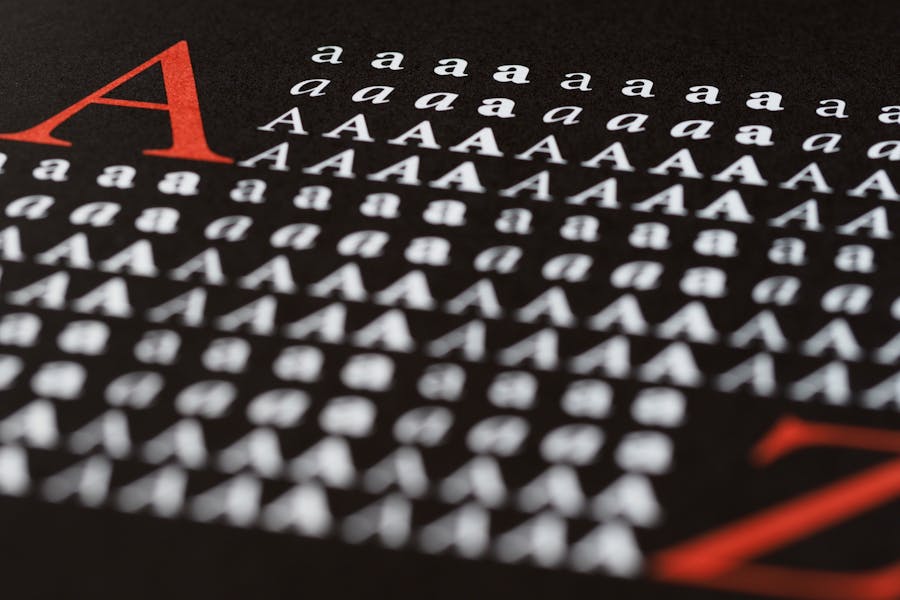
Most companies obsess over what to send. The product, the price point, the packaging. They spend weeks deciding between a premium hamper and a personalized experience box. Then they slap a generic font on the gift card and call it done.
That’s where it quietly falls apart.
There are platforms built around this problem. The idea is that how a gift looks is part of the gift.
Which sounds obvious. But most gifting workflows treat it as an afterthought.
First Impressions Happen Before the Gift Opens
Think about the last time you received something in the mail. Before you opened it, you were already forming an impression. The envelope. The label. The card inside.
Typography is doing most of that work.
A well-chosen typeface on a gift card signals care. Poor kerning, a mismatched font, or a layout that looks assembled in five minutes signals the opposite. The gift inside might be excellent. But the wrap already told a story.
This is why typography isn’t a finishing touch in B2B gifting. It’s part of the message.
The Wrong Font Costs More Than You Think
Bad typography in gifting materials doesn’t just look off. It quietly erodes trust. Clients notice – not always consciously, but they notice. A gift from a company that clearly cares about how it presents itself feels different to one that doesn’t.
It’s the difference between a handwritten note and a printed slip.
The font carries that weight. Ignoring it is a more expensive mistake than most gifting teams realise.
Matching Your Typeface to Your Brand Voice
The font on a gift card or thank-you email should feel like an extension of the brand, not an afterthought. Here’s how to think about it:
For Brands That Want to Feel Warm and Human
Rounded sans-serifs work well here. Fonts like Nunito or Poppins have a softness that reads as approachable. Good for companies in HR tech, wellness, or any sector where the relationship is the product.
They also hold up well in digital formats – gift emails, e-cards, digital vouchers. Clean at any size.
For Brands That Need to Feel Authoritative
Go serif. A typeface like Lora brings gravitas without feeling cold. It suggests something established and considered. Printed gift cards and formal thank-you notes carry this well.
For Brands That Live Between Both
Humanist sans-serifs strike the balance. Source Sans Pro is a solid example – structured enough to feel professional, open enough to feel human. Works across almost every industry and format.
Font Pairing in Gifting Materials
Single-font gifting materials look flat. Two fonts – one for the headline, one for the body – create hierarchy and make the message easier to absorb.
The principle is simple: contrast in style, harmony in tone. A display serif for the recipient’s name at the top, a clean sans-serif for the message below. Or a bold sans for the headline, a lighter weight of the same family for the copy.
Specific Copy Over Generic Copy
“Thank you for your continued partnership” is the typographic equivalent of Comic Sans. Technically functional. Emotionally flat.
Write something specific. Reference a moment. Name a project. One sentence that proves you actually know who you’re sending to is worth more than the most expensive gift in the catalogue.
Consistency Across Every Touchpoint
The font on the gift card should match the font in the email notification. The colours should align with brand guidelines. Every part of the gifting flow should feel like it came from the same place.
Inconsistency creates friction. Friction makes gifts forgettable.
The Takeaway
B2B gifting is a design problem that most companies treat as a logistics problem. They sort the what and the when. The way it looks gets left for last.
Typography is where that gap shows up most clearly. The font on the card, the pairing in the email, the weight of the typeface on the packaging – all of it is communicating something before the gift even opens.
Get it right and the gift does exactly what it’s supposed to.